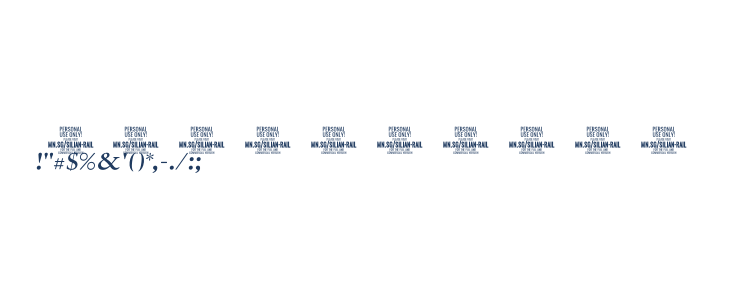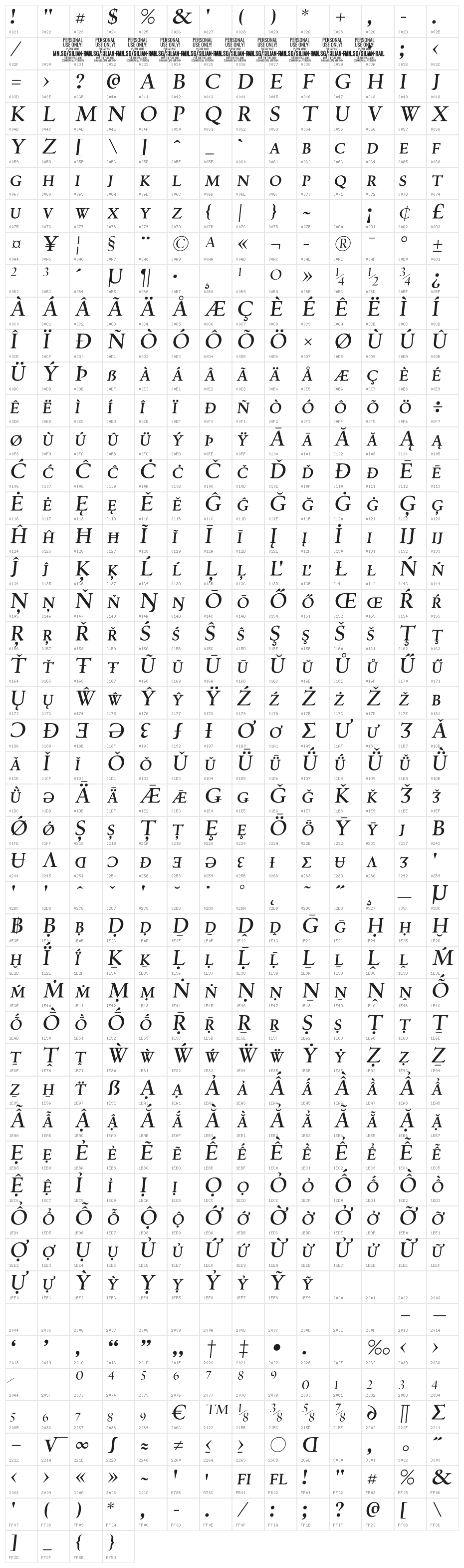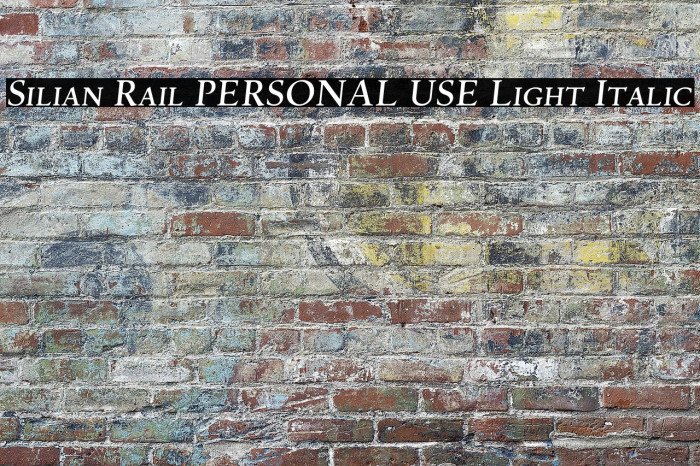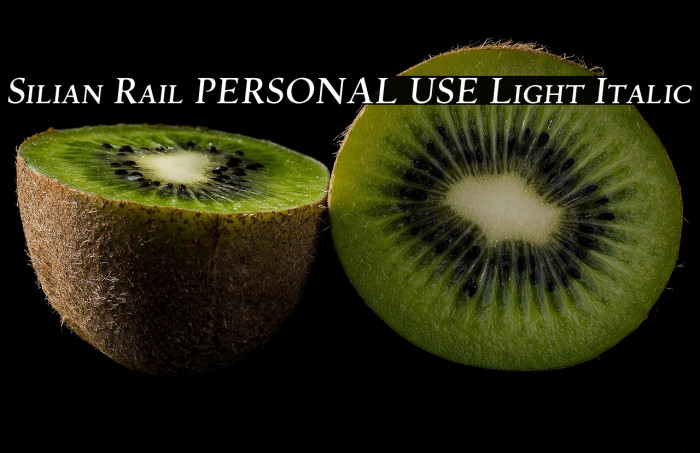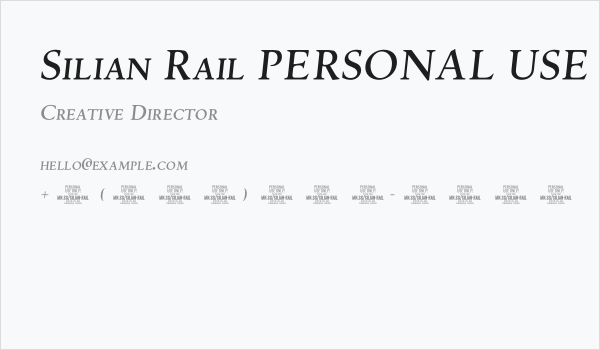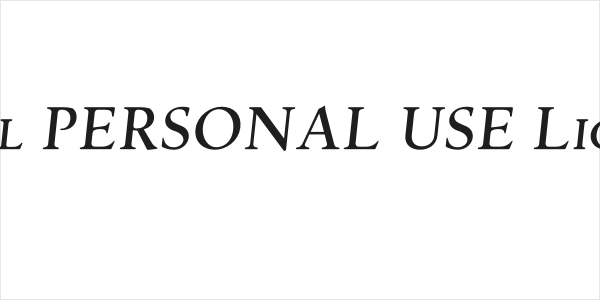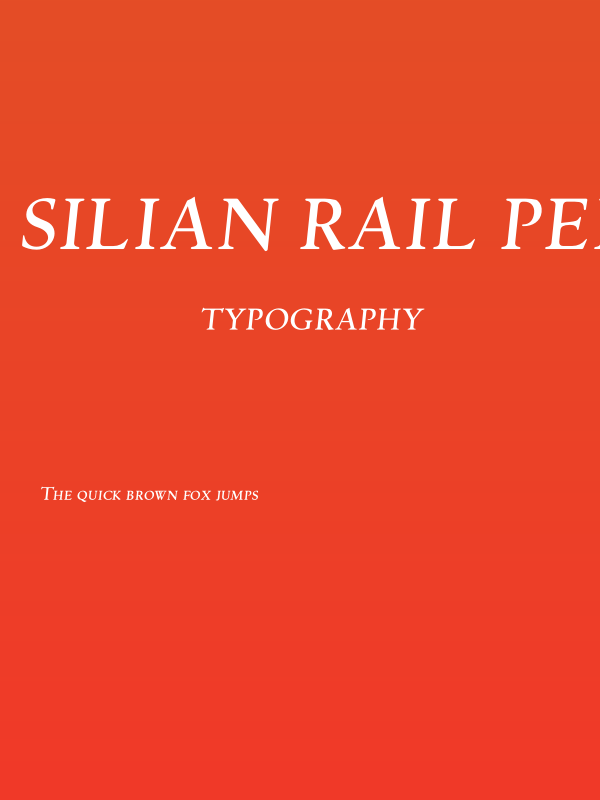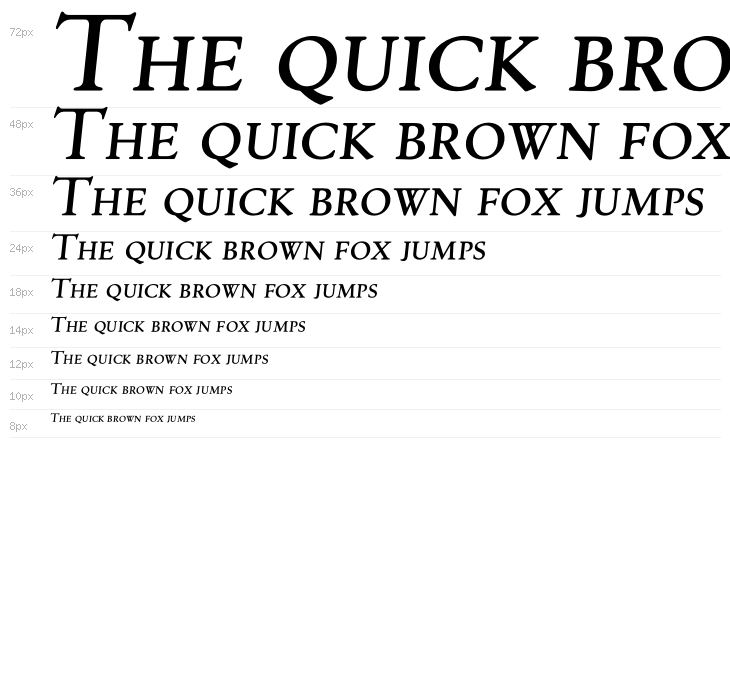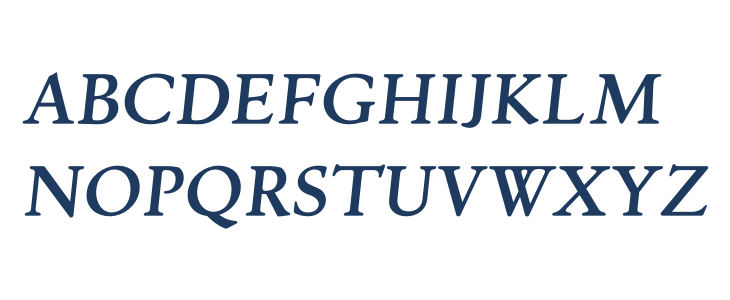
Silian Rail PERSONAL USE Light Italic Font
Silian Rail PERSONAL USE Light Italic Description
This font features a classic serif style with a light and elegant touch. The italicized form adds a sense of sophistication and fluidity, making it suitable for formal and refined applications. The characters are well-proportioned, with a slight slant that enhances readability while maintaining a graceful appearance. The serifs are pronounced yet delicate, contributing to the overall aesthetic of timeless elegance. The font's design is versatile, making it ideal for both digital and print media, where a touch of class is desired.
Overall StyleClassic
Proposed ProjectsIdeal for wedding invitations, luxury branding, editorial design, and elegant website headers.